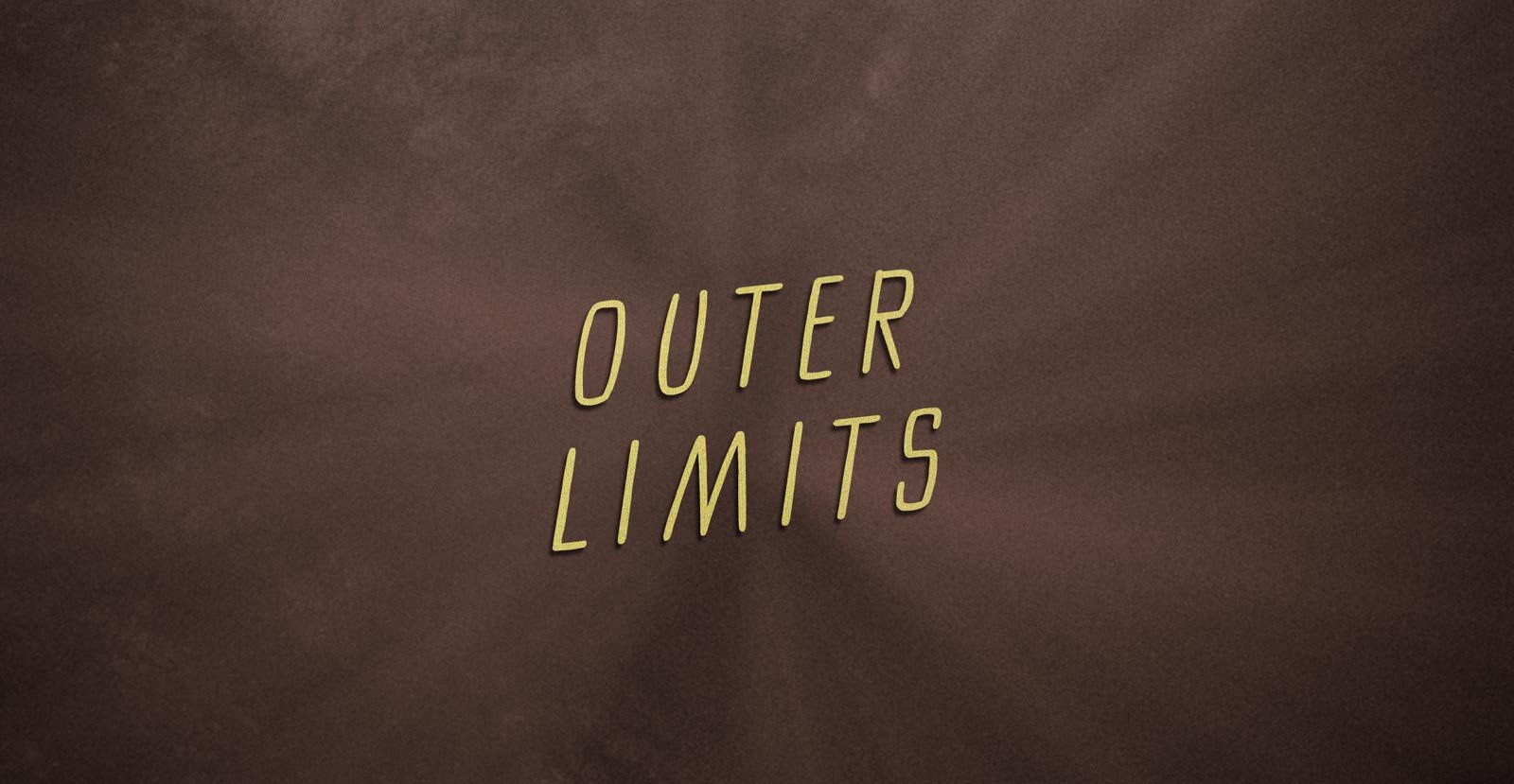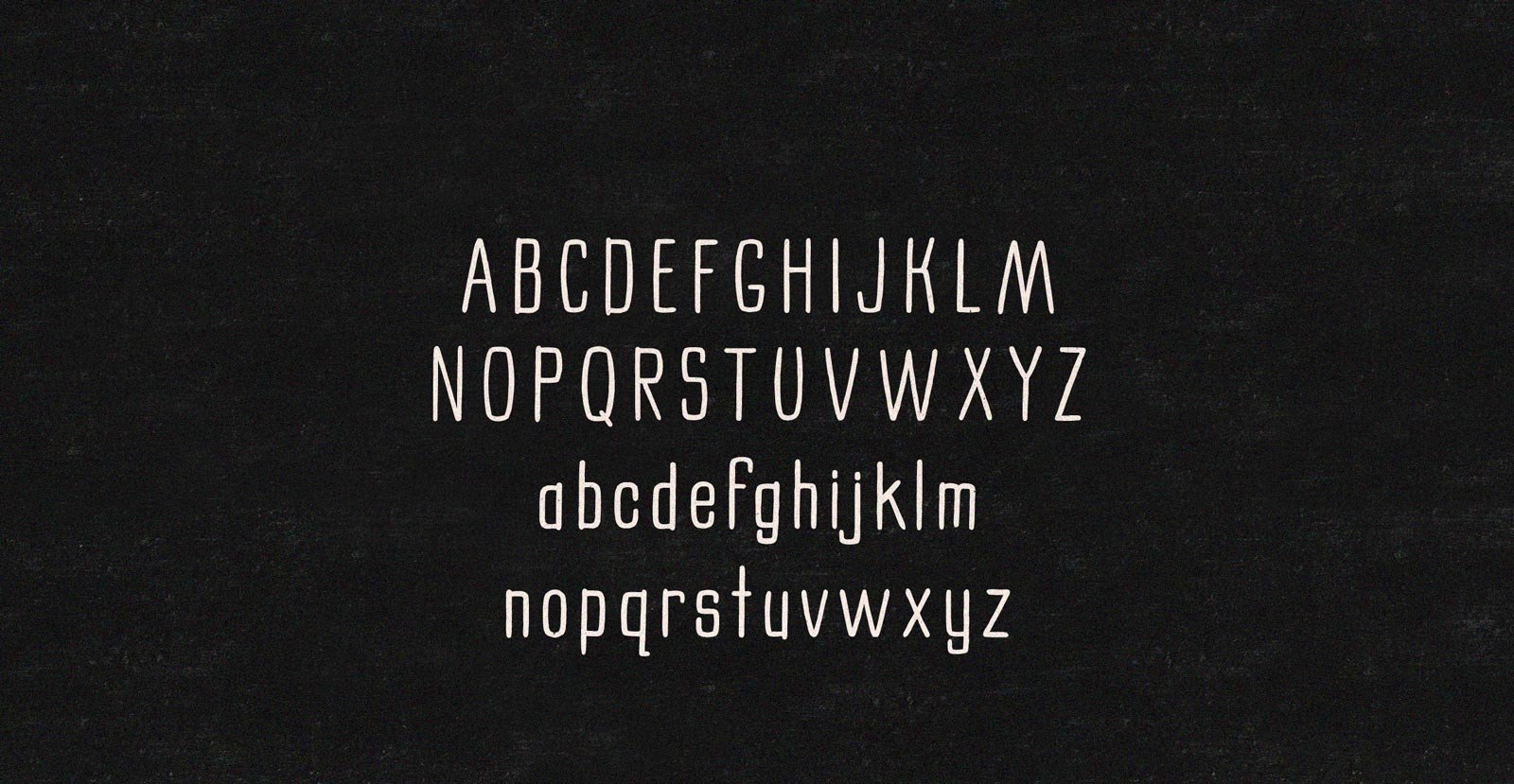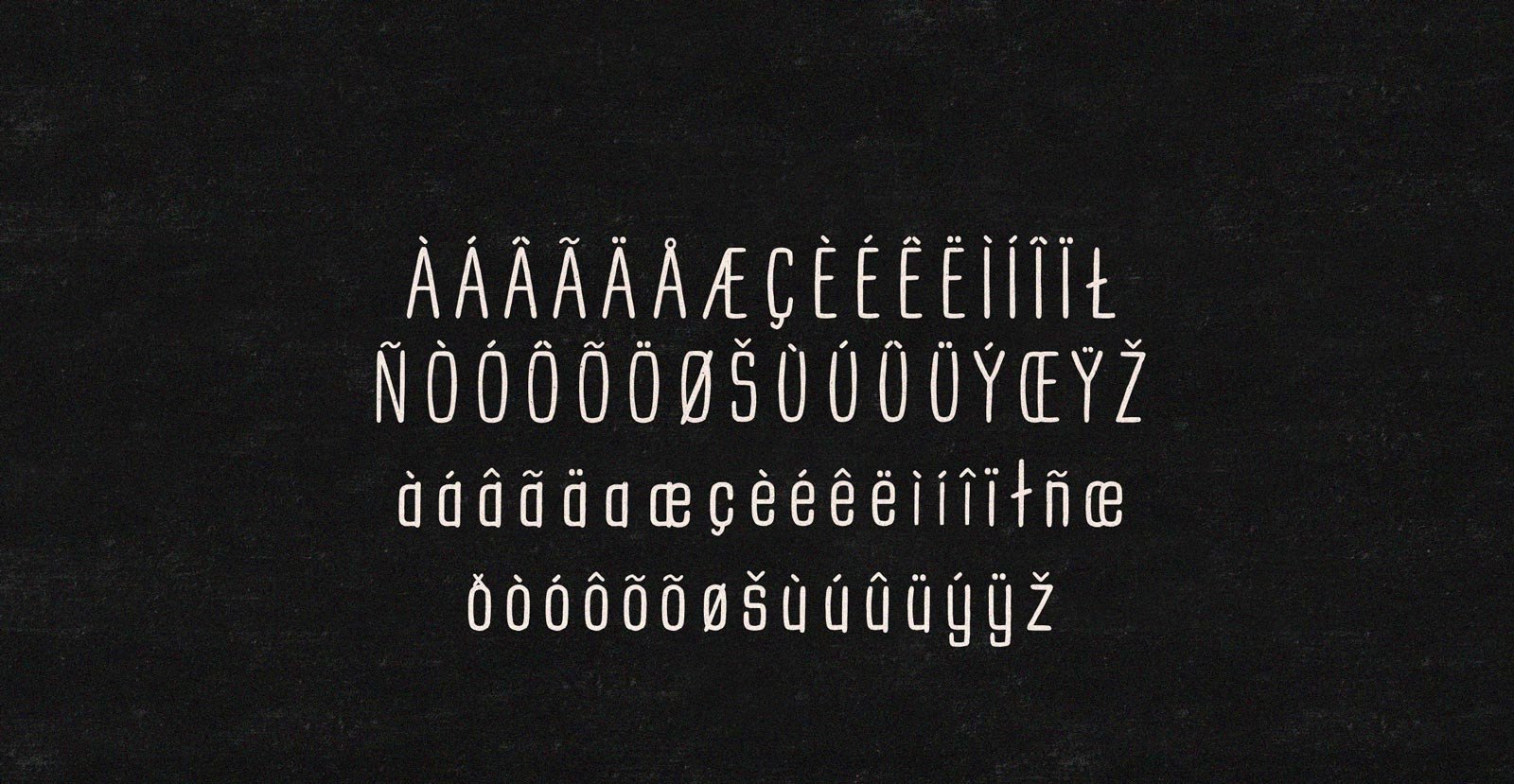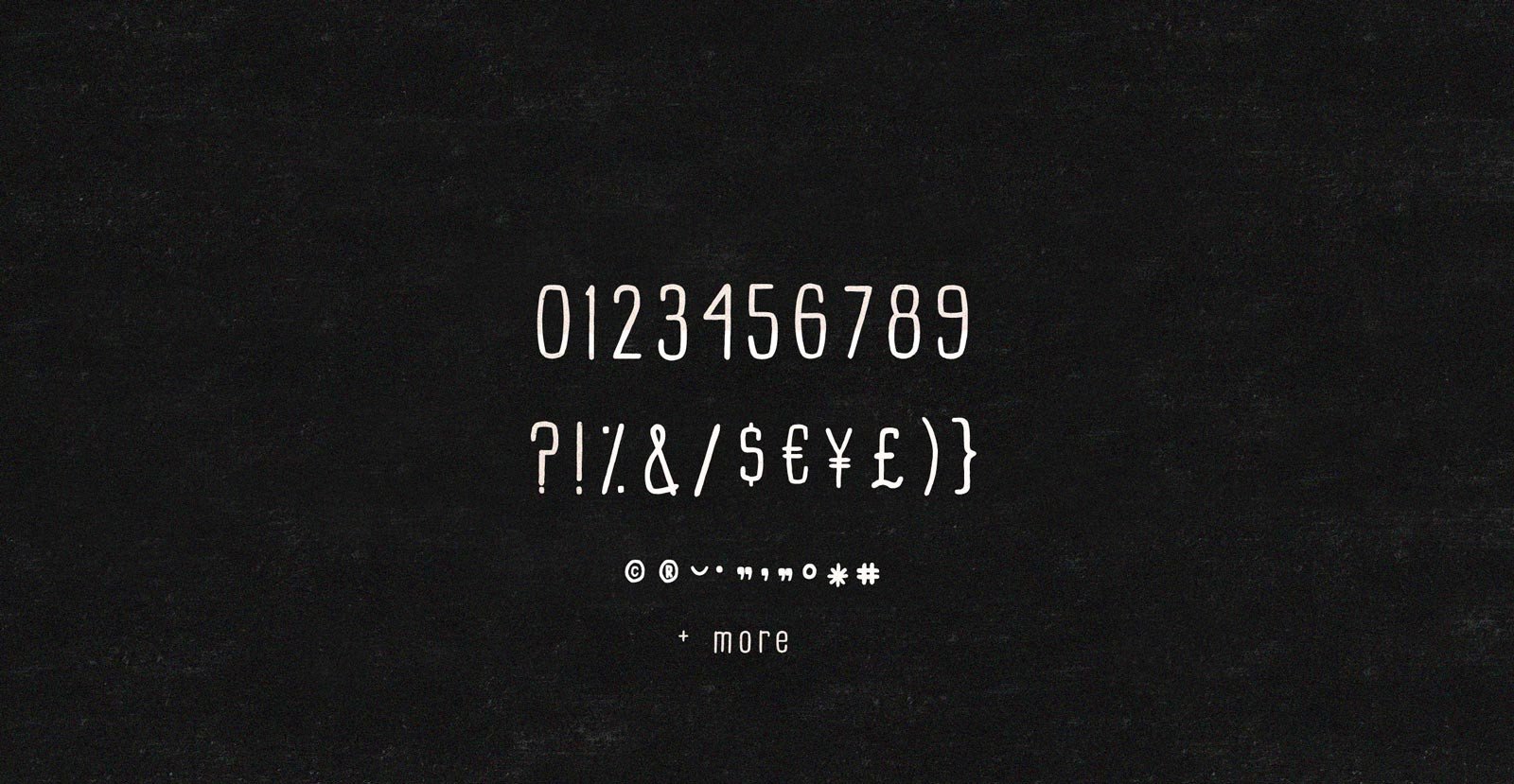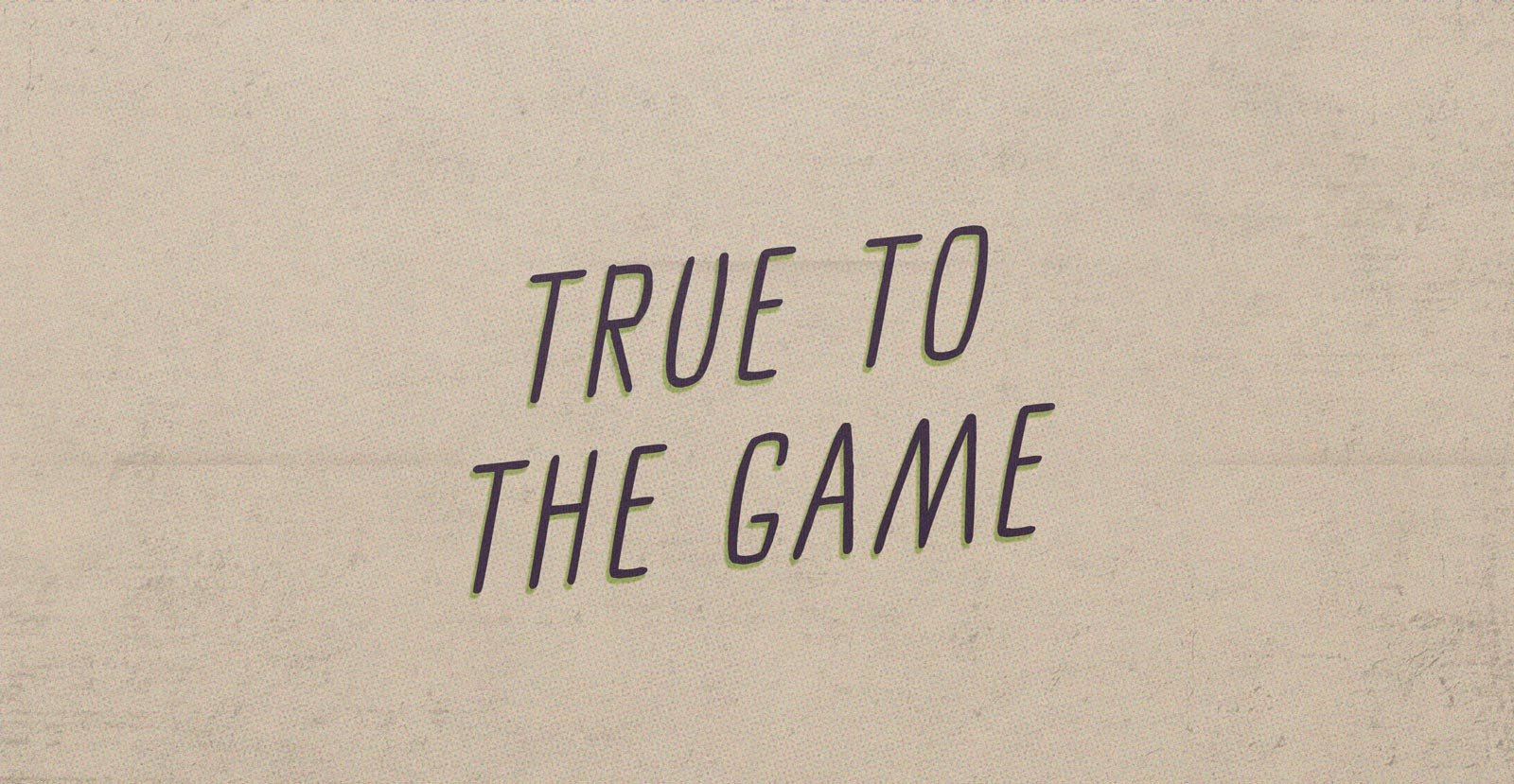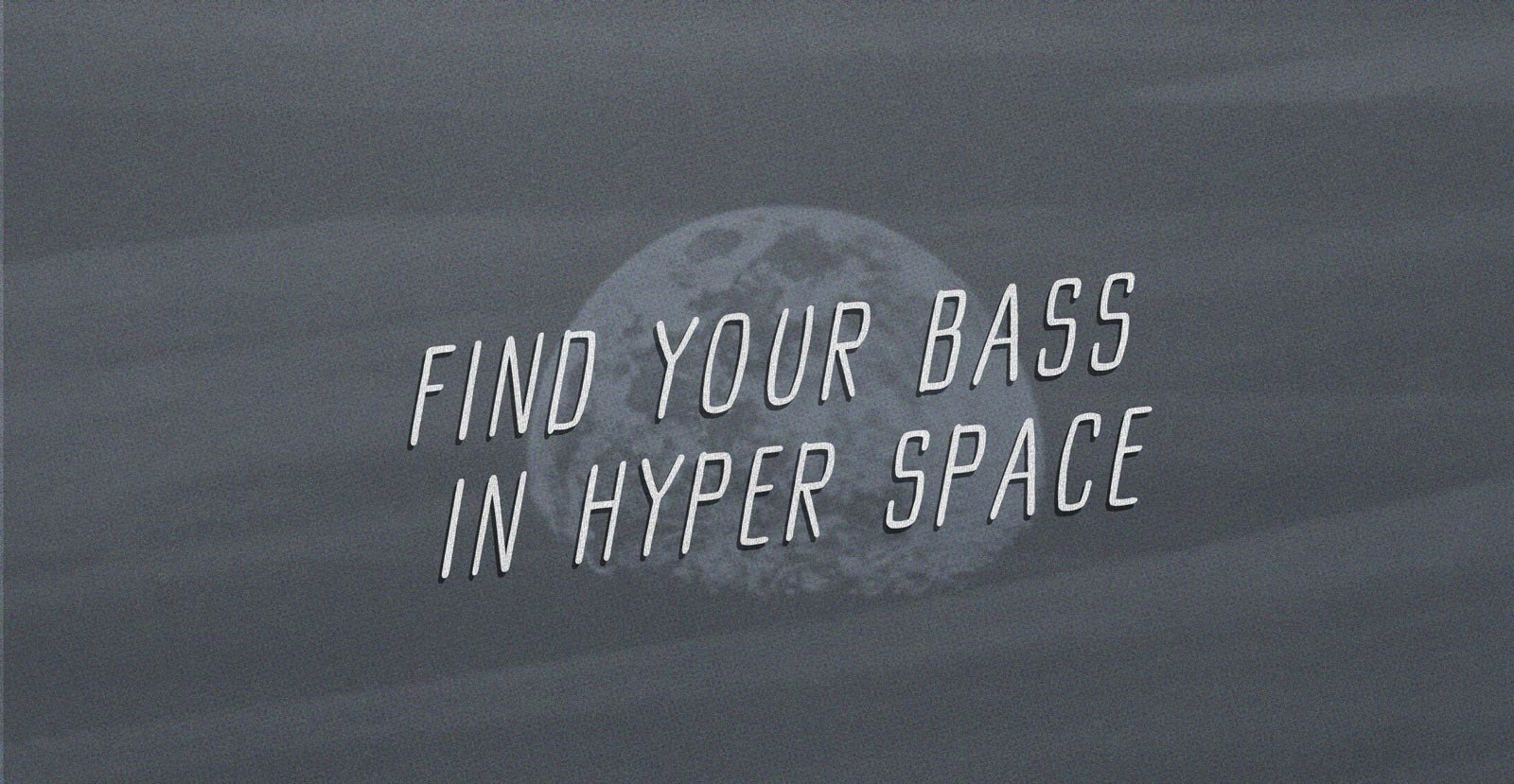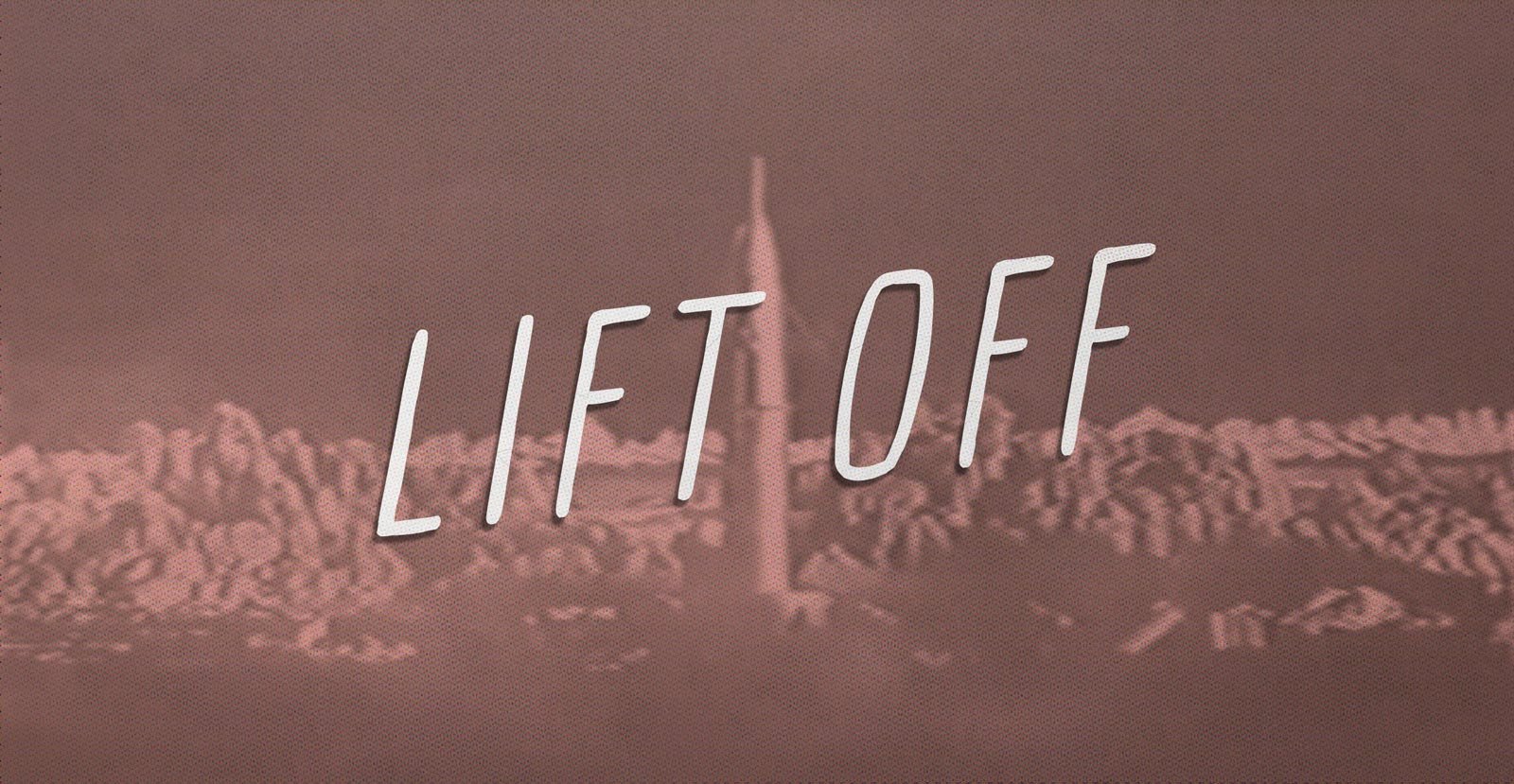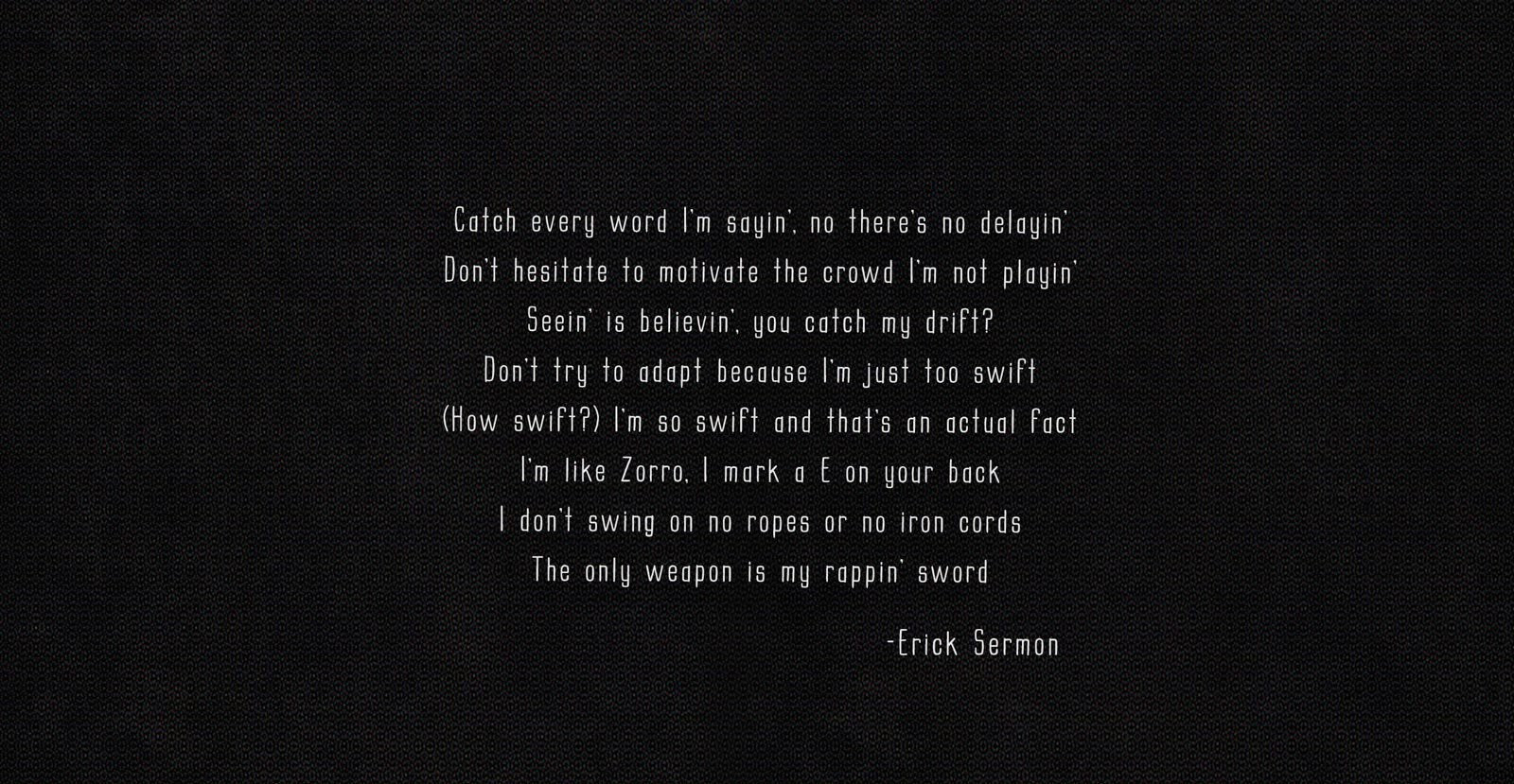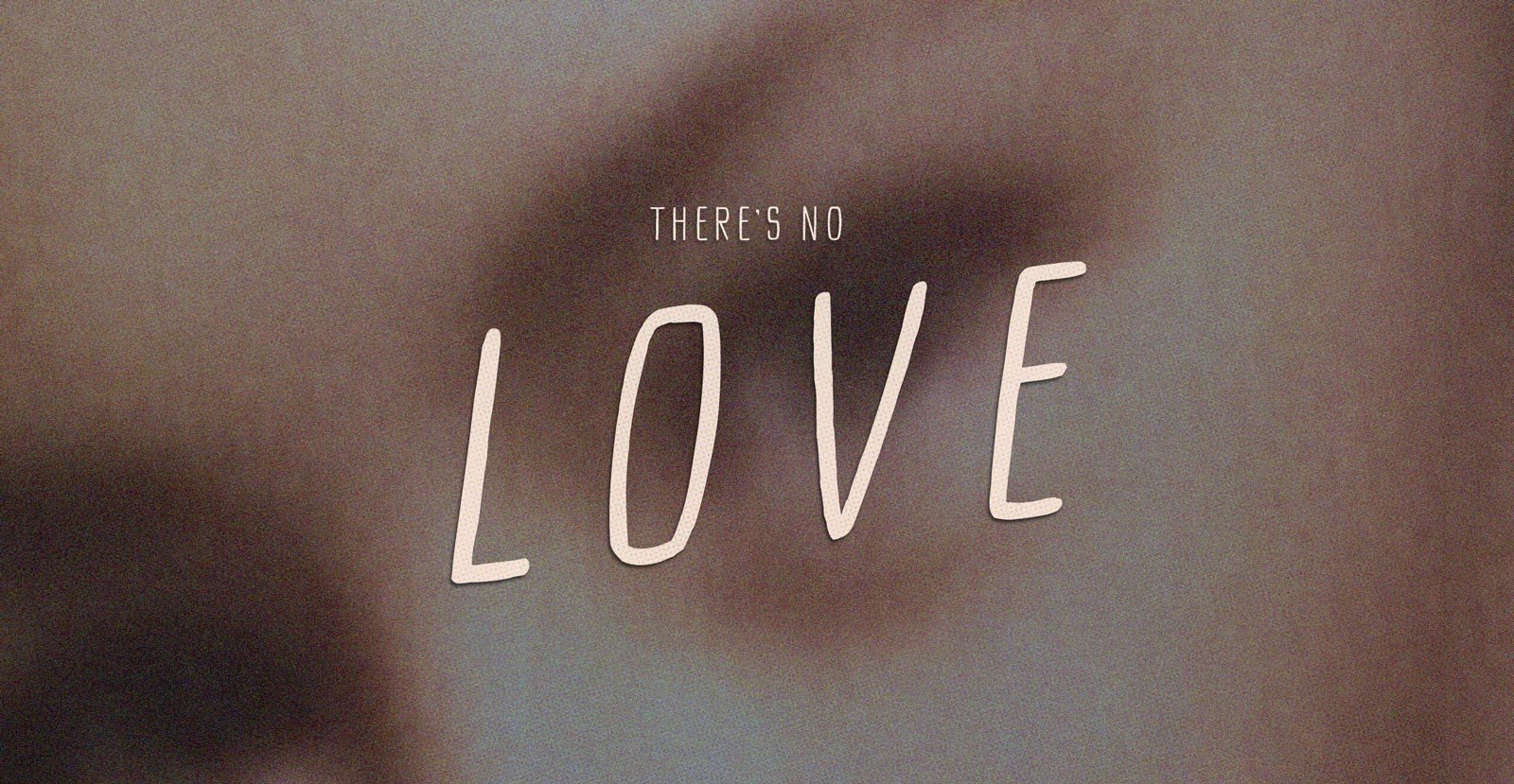
Outer Limits
Handwritten Sans Serif Font
There is nothing wrong with your monitor. Do not attempt to adjust the picture. We are controlling the image. We will control the horizontal. We will control the vertical. We can adjust the focus to a soft blur, or sharpen it to crystal clarity. Sit quietly, and we will control all that you see. You are about to participate in a great adventure. You are about to experience the awe and mystery that reaches from the inner mind to... the Outer Limits.